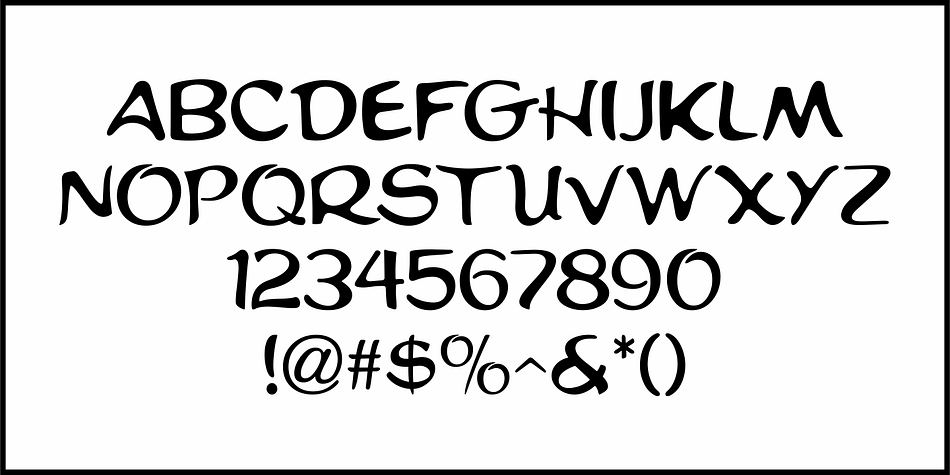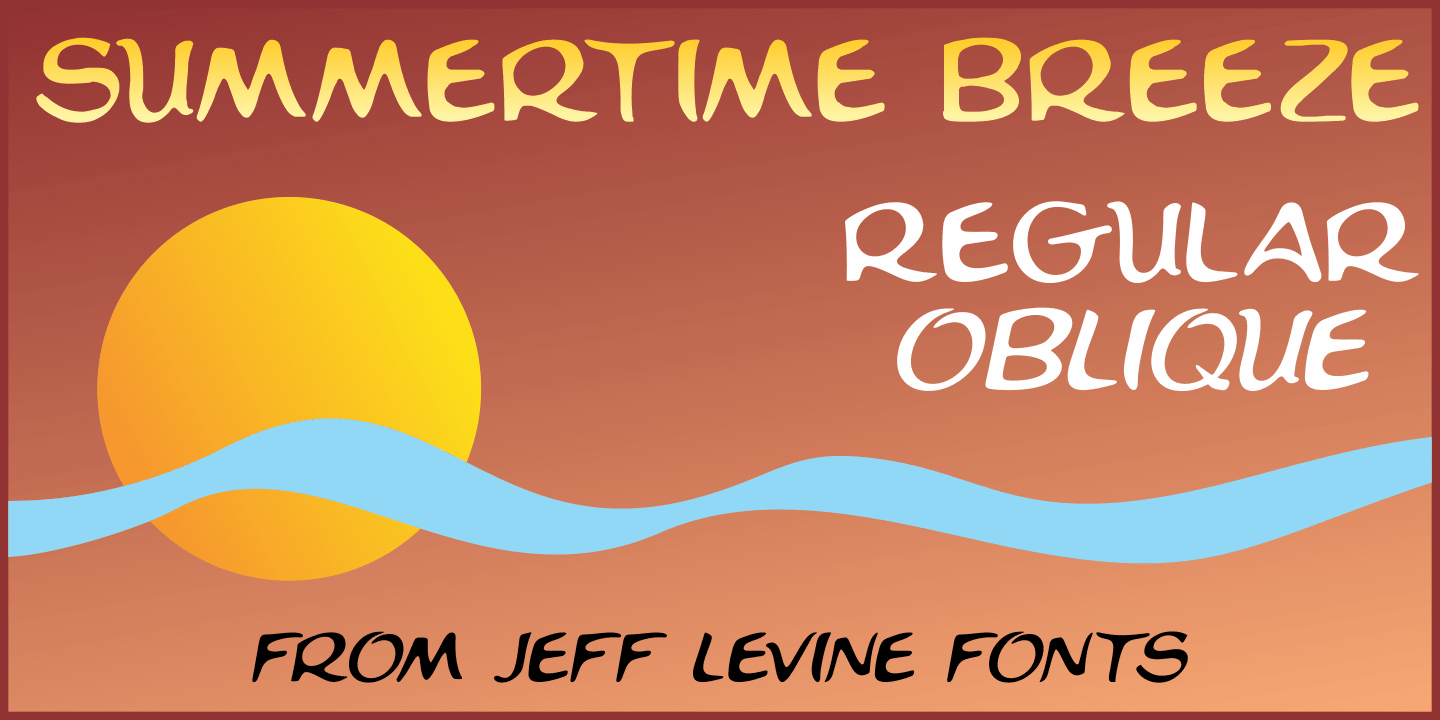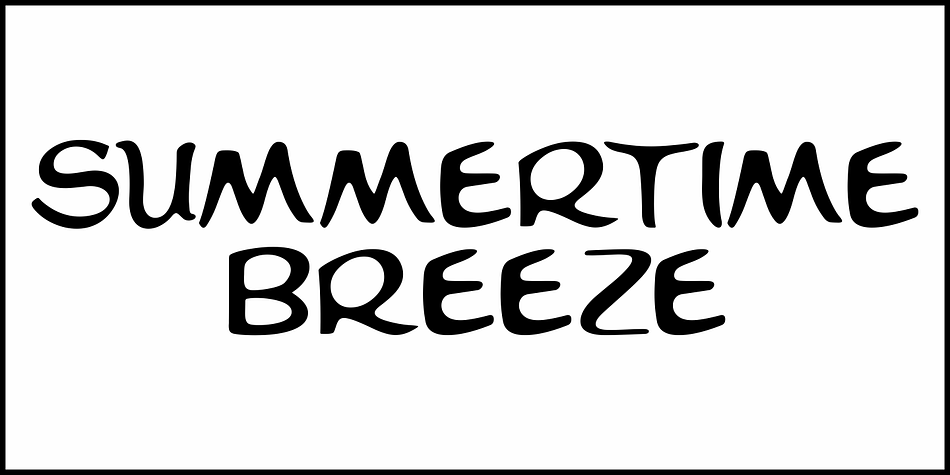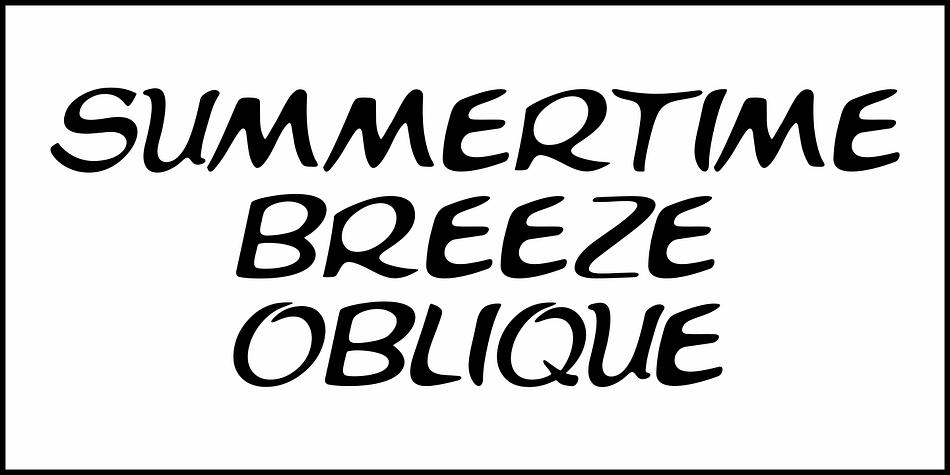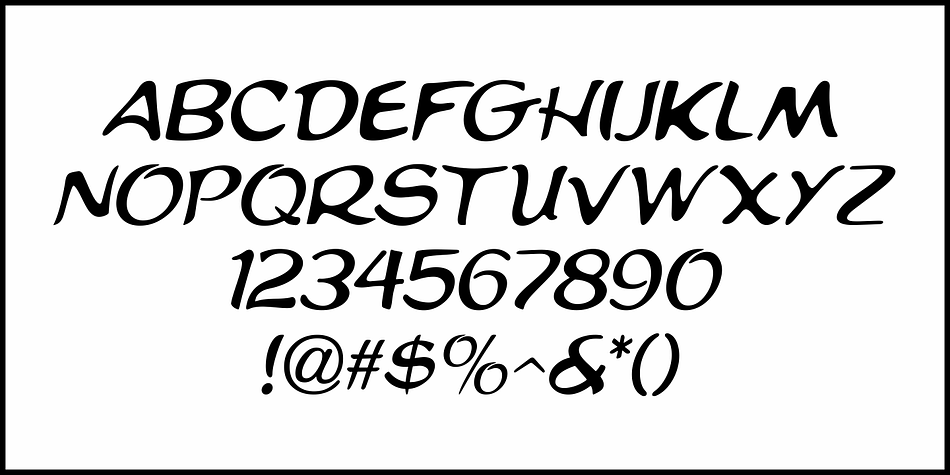
SUMMERTIME BREEZE JNL
Designed by Jeff Levine, Summertime Breeze JNL is a hand display and hand drawn font family. This typeface has two styles and was published by Jeff Levine Fonts.
The opening title sequence for the 1958 film “The Long, Hot Summer” was hand lettered in a free-form style as if painted with loose paintbrush strokes.
This served as the model and inspiration for Summertime Breeze JNL, which is available in both regular and oblique versions.